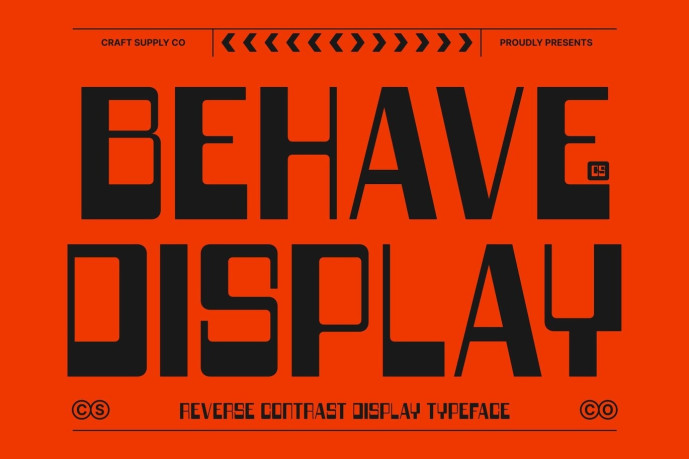
Behave – Reverse Contrast Font
CS Behave – Condensed Reverse Contrast Display Sans Serif: Where Geometric Precision Meets Contemporary Retro Style Tall Geometric Forms with Unconventional Contrast This is a condensed reverse contrast display sans serif font featuring tall geometric letterforms, soft rounded corners, and distinctive reverse contrast construction. With thicker horizontal strokes and slimmer verticals, it reinterprets a classic typographic style through a contemporary lens. The result is a display typeface that feels bold, elegant, and instantly recognizable.
Modern Geometry with Refined Character This font maximizes visual impact while maintaining excellent readability. Its rounded corners soften the structured geometry, creating a balanced aesthetic that is both approachable and sophisticated. This harmonious combination of bold forms and refined details gives the font a versatile personality suitable for a wide range of creative applications.
Contemporary Style with Bold Presence This font blends retro-inspired reverse contrast with modern geometric simplicity, producing typography that feels expressive without overwhelming a composition. Its striking letterforms naturally draw attention, making it ideal for display settings where personality and clarity are equally important.
Perfect for Posters, Editorial, and Display Design Perfect for editorial headlines, posters, logos, packaging, magazine covers, advertising campaigns, product labels, signage, and modern visual identities. Its condensed proportions and reverse contrast styling make it ideal for typography that seeks to communicate creativity, elegance, and contemporary confidence.